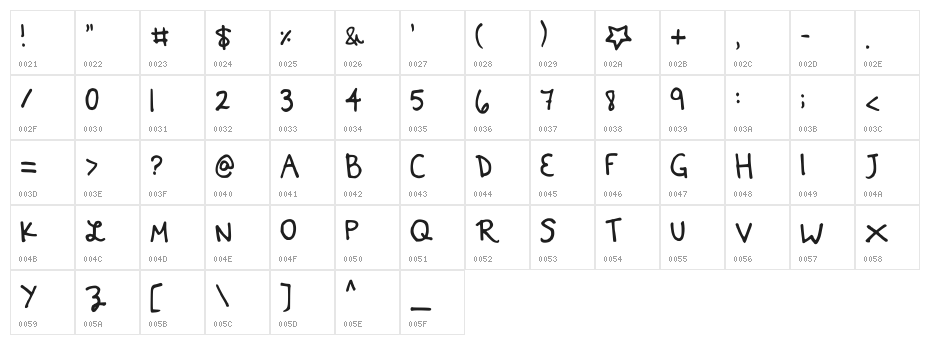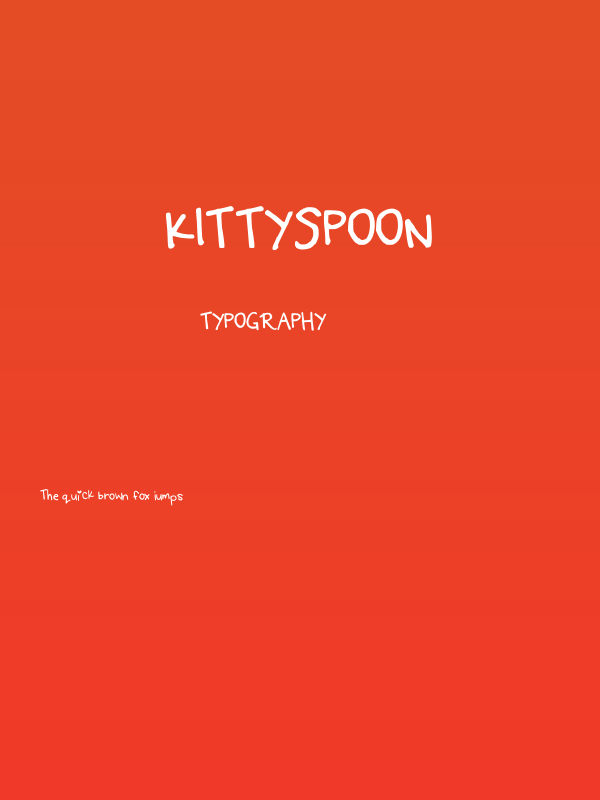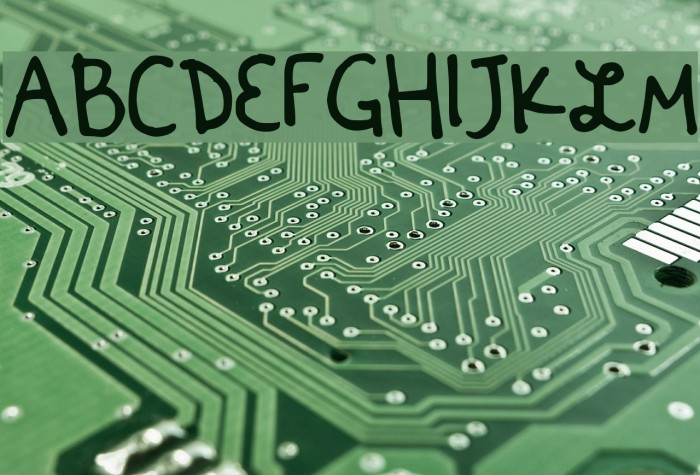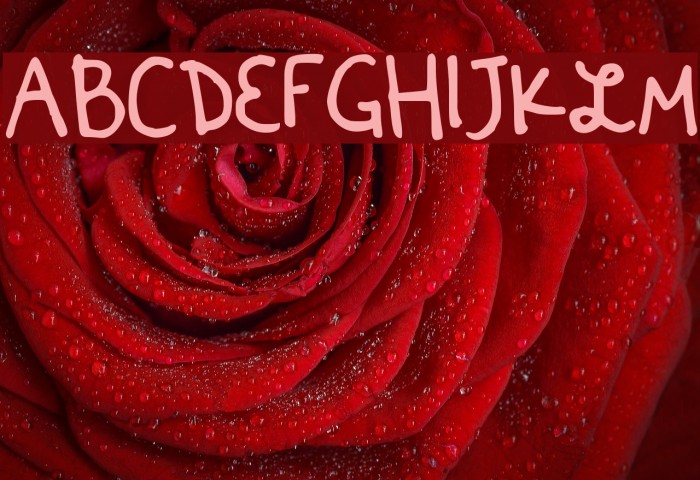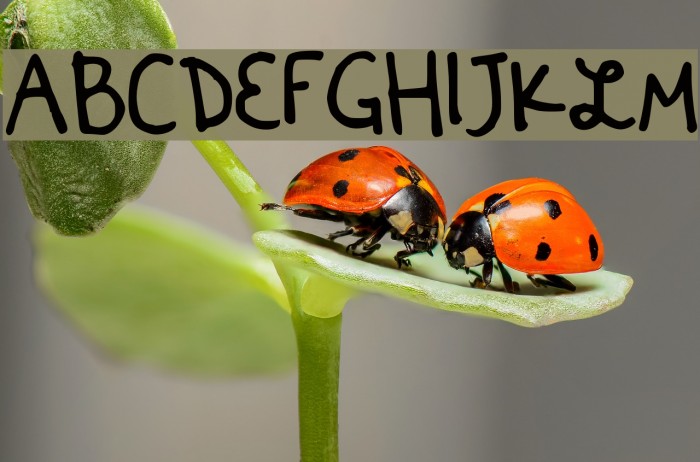
Kittyspoon Font
Kittyspoon Description
This playful and whimsical font features a handwritten style with a casual and friendly appearance. The letters are slightly irregular, giving it a personal touch that mimics natural handwriting. The strokes are smooth and rounded, with a consistent thickness throughout, creating a harmonious and approachable look. The font includes both uppercase and lowercase letters, numbers, and a variety of special characters, making it versatile for different uses. Its charming and informal style makes it ideal for projects that require a personal or creative touch.
| Overall Style | Playful |
| Use Case | Headlines, Logos, Informal Text |
| Proposed Projects | Ideal for greeting cards, children's books, playful branding, and personal projects. |